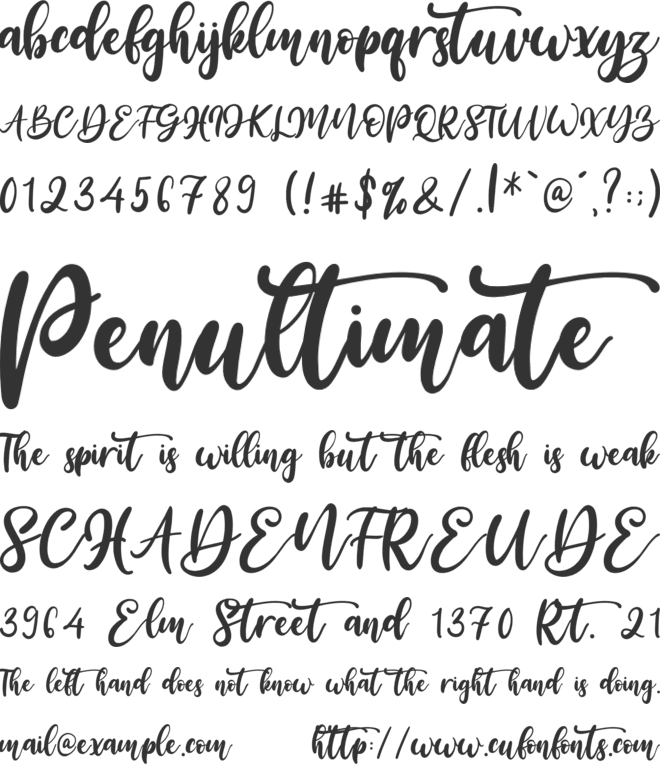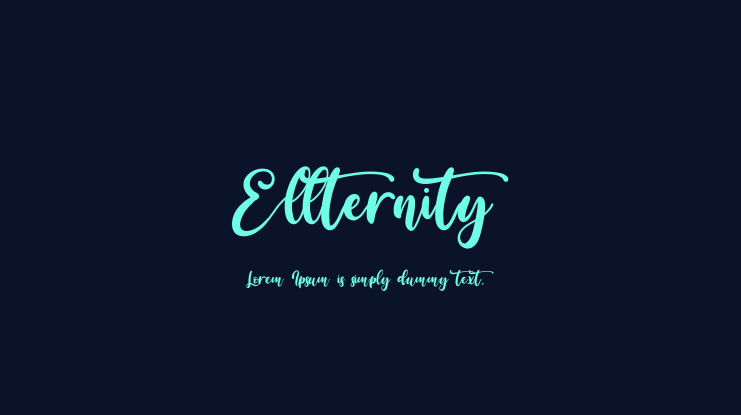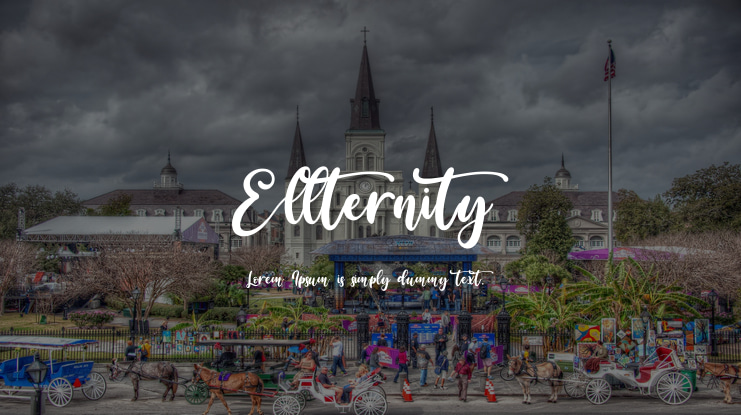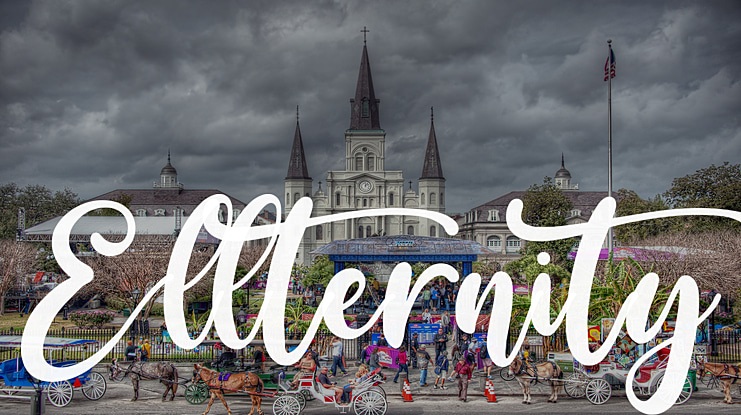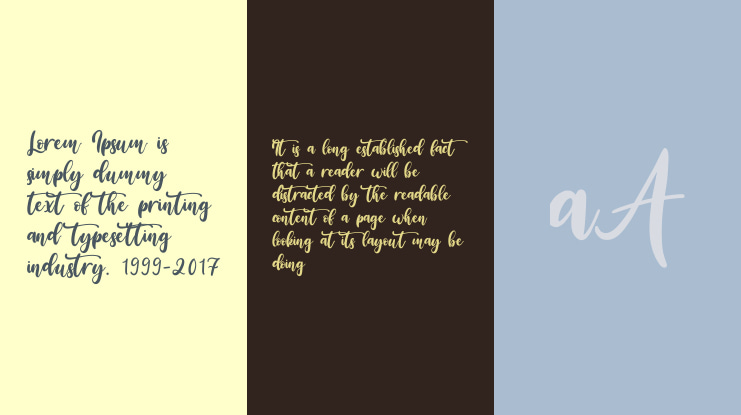
Ellternity Font Family
Ellternity Signature Typeface. A collection of letters and numbers suitable your projects also great for Logotype, Branding Design, Logo Design, Digital Lettering Arts, T-Shirt/Apparel, Poster, Magazine, Signs, Advertising Design, and any design needs.